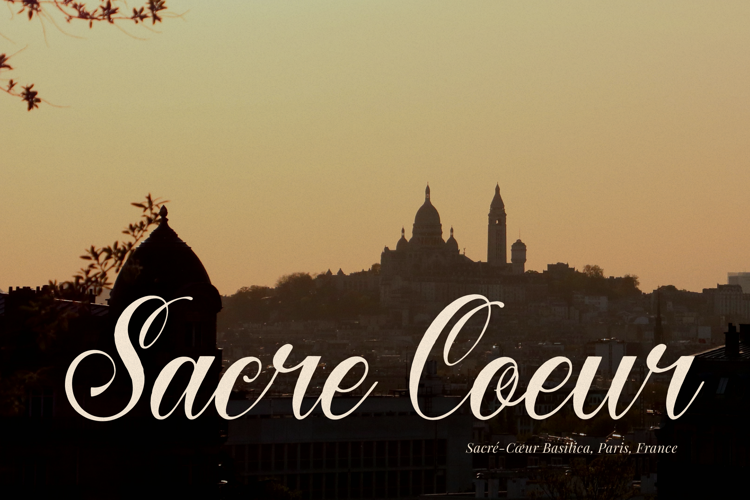
Larfioda Font
Larfioda | Elegant Script Font, is suitable for any projects such as: logos, branding projects, homeware designs, product packaging, mugs, quotes, posters, shopping bags, t-shirts, book covers, name card, invitation cards, greeting cards, label, photography, watermark, special events, and all your other lovely projects that need a Script taste.